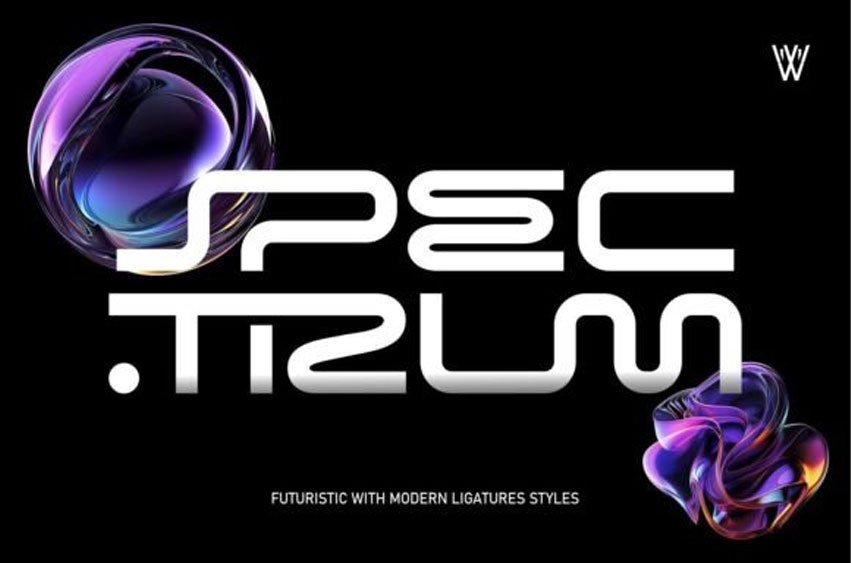
Spectrum Font is the futuristic font that revolutionizes design with its bold and geometric style.
Envisioned for the contemporary age, Spectrum is a unique blend of crisp precision, futuristic edge, and sporty aesthetics, making it an outstanding asset for high-impact sports branding, intuitive tech interfaces, dynamic gaming graphics, and eye-catching advertisements.